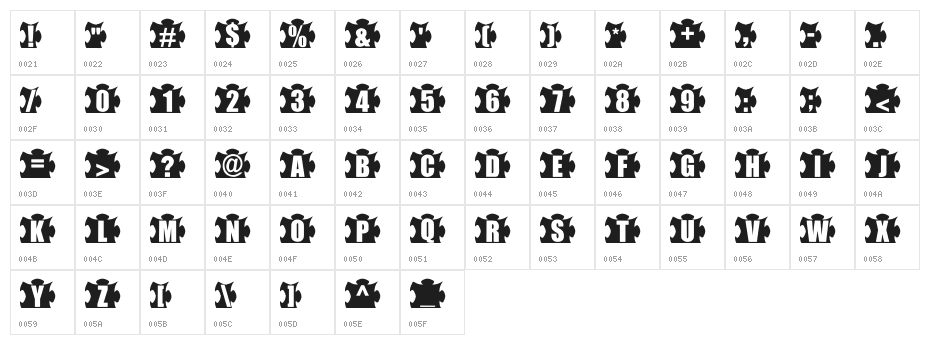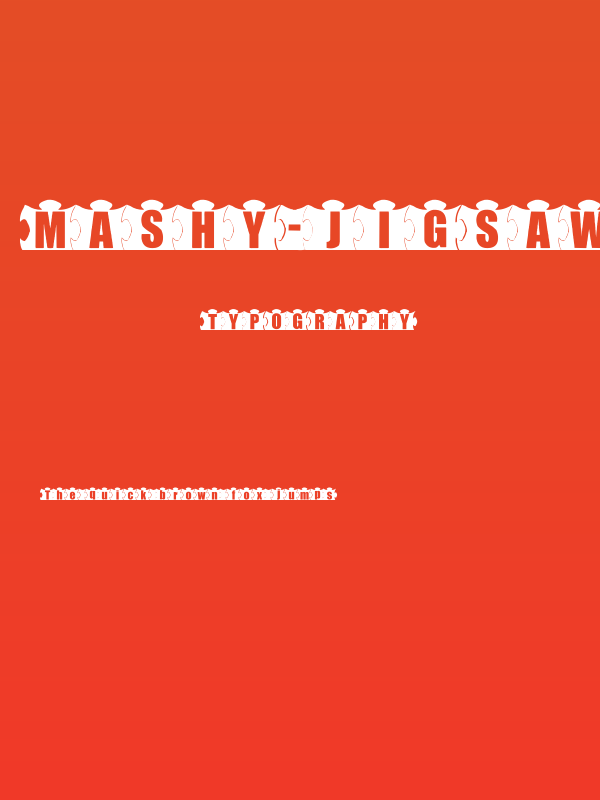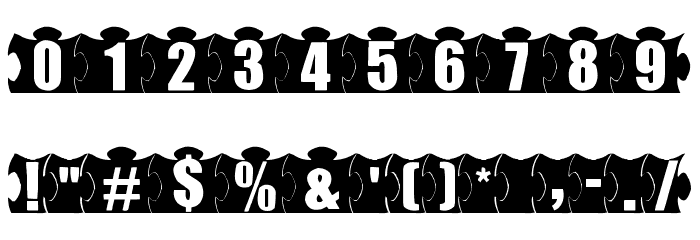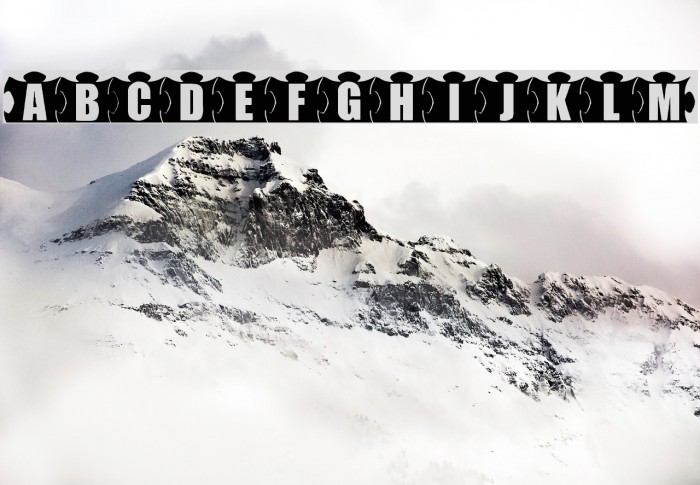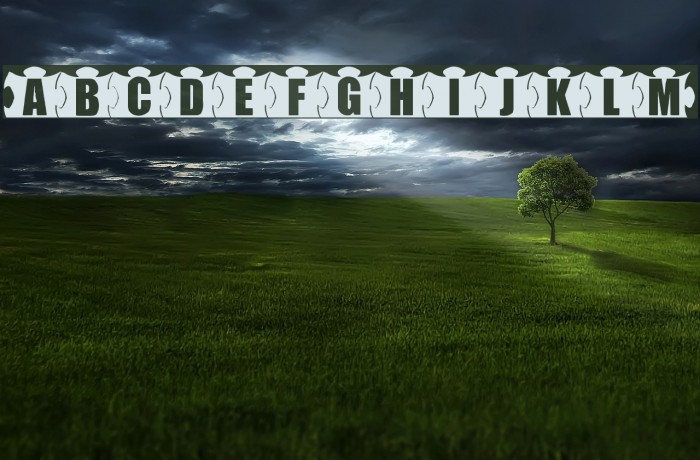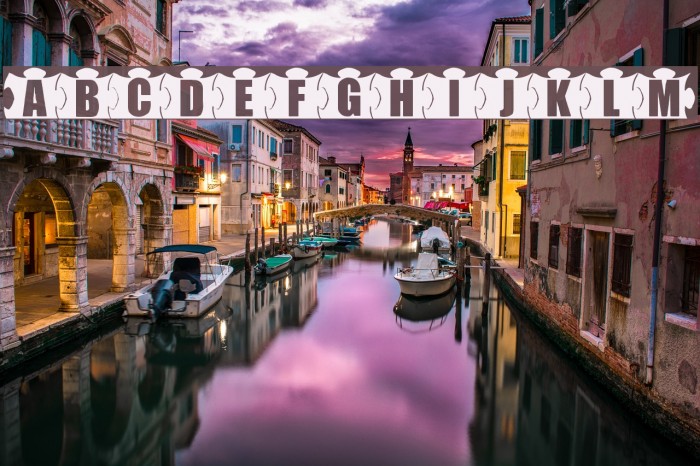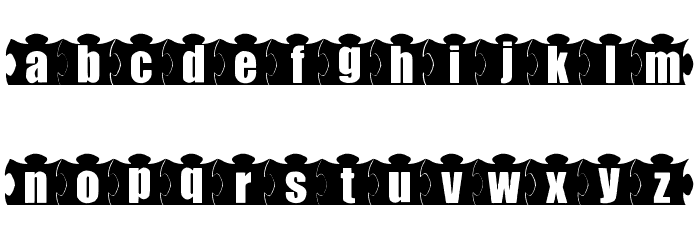
mashy-Jigsaw Font
mashy-Jigsaw Description
This font features a unique design where each character is encapsulated within a puzzle piece shape, creating a playful and engaging visual effect. The letters are bold and uppercase, with a consistent width and height, providing a uniform appearance across the alphabet. The puzzle piece outlines add a decorative element, making the font suitable for creative and informal projects. The characters are well-defined and maintain readability despite the intricate design. This font is ideal for projects that require a fun and distinctive look, such as children's books, games, or educational materials.
| Overall Style | Playful, Decorative |
| Proposed Projects | Children's books, educational materials, game design, playful branding. |